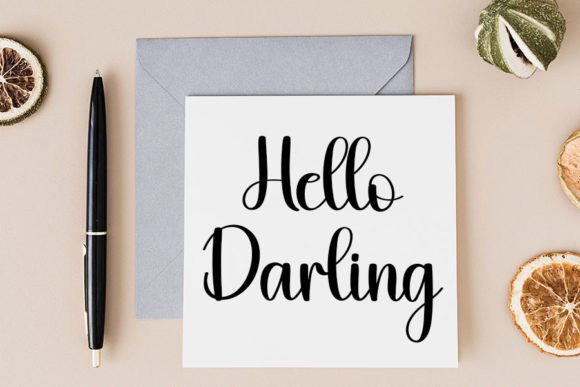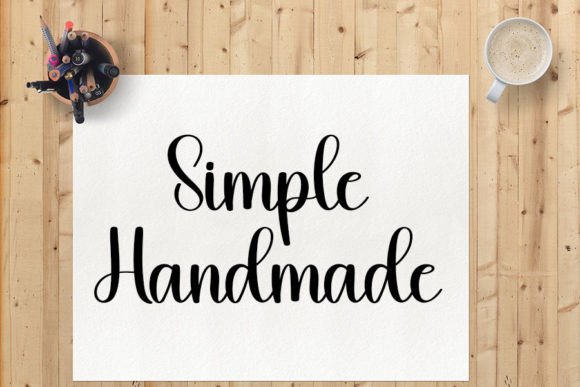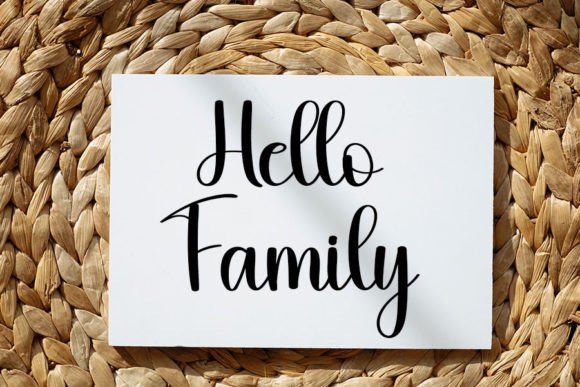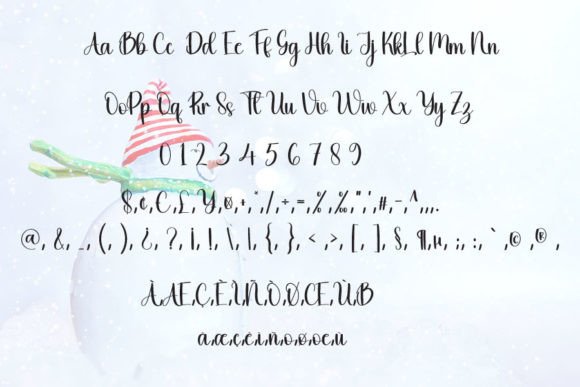
About Comedy Font
Comedy is a fun and friendly handwritten font. Whether you’re using it for crafts, digital design, presentations, or making greeting cards, this font has the potential to become your favorite go-to font, no matter the occasion!